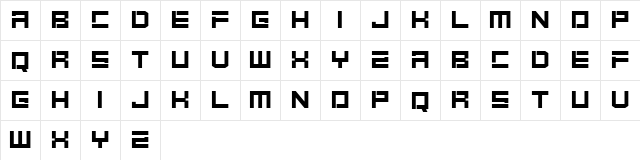
Sarno Forma Regular Free Font
Sarno Forma Regular
Design Context for Sarno Forma
Sarno Forma is a composed and adaptable typeface that performs quietly and consistently across a wide range of design contexts.